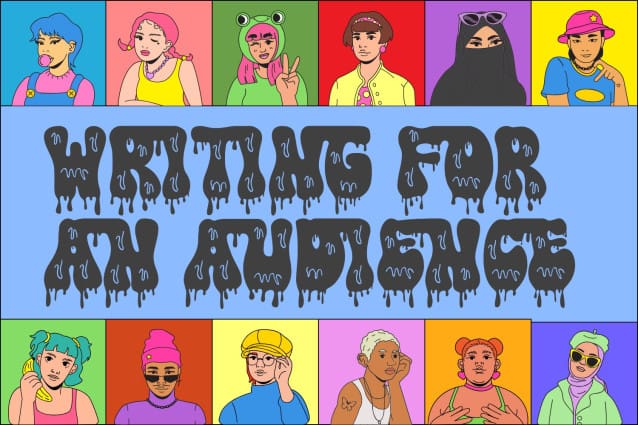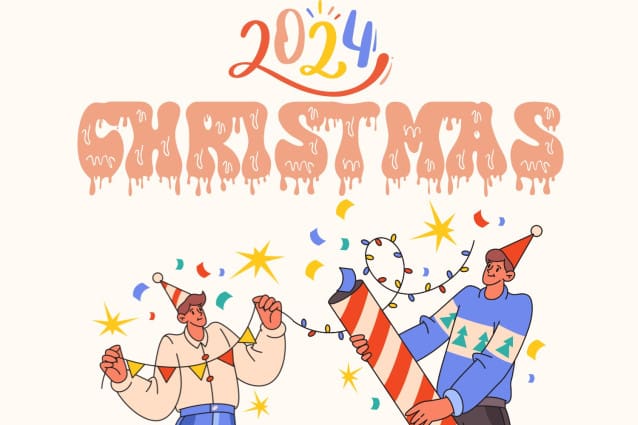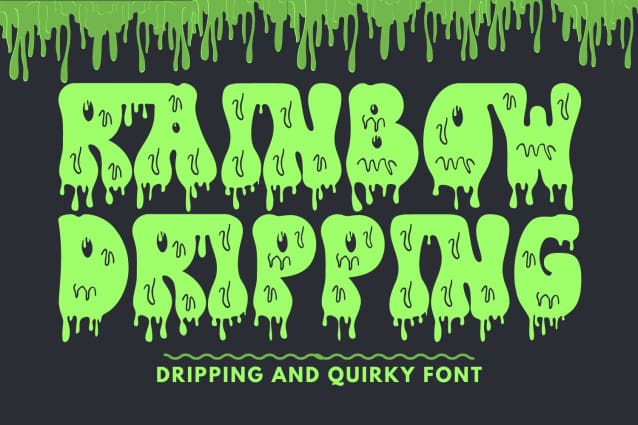
Rainbow Dripping Font
Rainbow Dripping Font is a bold and incredibly unique display font. Do you looking for best mud, slime, dripping, melting fonts for your design? this is the answer! This font is created with freehand digital drawing and created very detail, best for your vintage looking horror poster it also good for your design elements aswell. It can easily be matched to an incredibly large set of projects, so add it to your creative ideas and notice how it makes them stand out!
Rainbow Dripping was built with OpenType features and includes 100 ligatures, alternate, numbers, punctuation, and it also supports other languages.